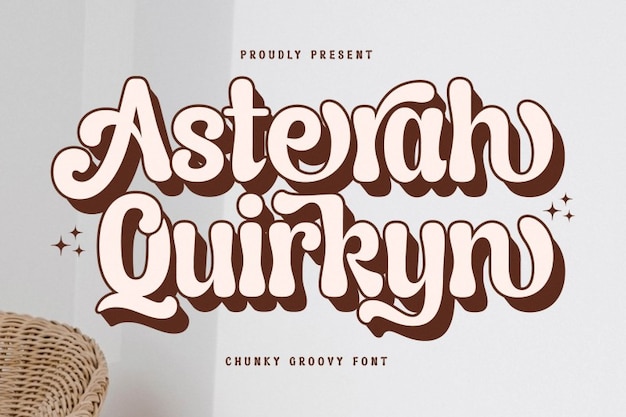
Asterah Quirkyn Font
"Asterah Quirkyn" is a groovy, vintage-inspired font that exudes cheer and boldness. Each letter is chunky and playful, capturing the lively spirit of retro design. Perfect for projects that celebrate nostalgia, fun, and vibrant energy, "Asterah Quirkyn" adds a whimsical and dynamic touch, making it ideal for posters, party invitations, and any design aiming to bring a smile and a touch of vintage charm.